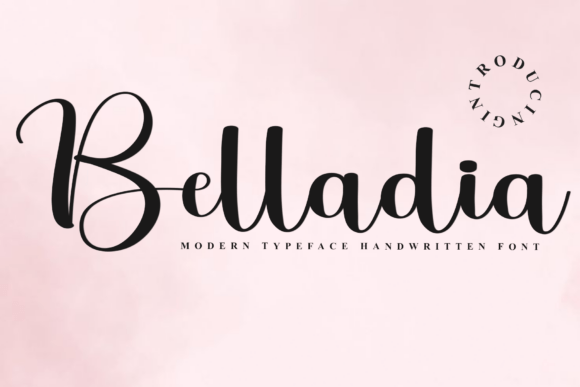
The Perfect Touch: Unlocking the Beauty of Belladia Font
Have you ever stared at a blank canvas, trying to come up with the perfect design concept, only to find yourself stuck in a creative rut? It’s a frustrating feeling, but one that’s easily overcome with the right tools. That’s where the Belladia Font comes in – a beautiful and eye-catching typeface that’s sure to breathe new life into your designs.
This soft, unique font is designed to add a special touch to your projects, making it perfect for designers, crafters, and anyone looking to add a personal touch to their work. With its distinctive strokes and versatile character, the Belladia Font is ideal for a wide range of applications, from digital design to handmade crafts.
Whether you’re working on a branding project, creating a piece of art, or simply looking to add some flair to your social media graphics, the Belladia Font is a valuable addition to any creative toolkit.
Belladia Font Key Features
- Font Family: Belladia is a script font designed to resemble handwritten text, ideal for creative and elegant designs.
- Character Set: Supports a wide range of languages, including Latin, Cyrillic, and Greek alphabets, making it suitable for multilingual designs.
- Unique Characteristics: Belladia’s script font style features connected letters, flourished strokes, and subtle irregularities, giving it a unique, handwritten feel.
Belladia Font Review
I’ve had the chance to work with the Belladia Font, and I must say it’s a unique and intriguing addition to any design project. ✨ One of its standout features is its elegant, handwritten feel, which makes it perfect for titles, headings, and other display text. The font’s subtle flair and flourishes add a touch of sophistication and whimsy, making it ideal for creative and artistic projects.
Another aspect that works well is its versatility. ✨ The Belladia Font comes in a range of weights, from Light to Bold, allowing you to adjust the font’s intensity to suit your design needs. This makes it easy to create a cohesive look across your project, whether you’re working with text-heavy or image-centric designs.
While the Belladia Font is a great addition to any design project, there are some limitations to be aware of. ⚠️ For one, the font may not be the best choice for body text, as its handwritten feel can be tiring to read in large quantities. Additionally, the font’s flourishes and flair can sometimes make it difficult to read, especially in smaller sizes.
Overall, I think the Belladia Font is a great choice for designers looking to add a touch of elegance and whimsy to their projects. While it may have some limitations, its unique feel and versatility make it a valuable addition to any design toolbox.
- Elegant, handwritten feel
- Range of weights (Light to Bold)
- Perfect for titles, headings, and display text
- Versatile and easy to use
- Not ideal for body text or small sizes
Getting the Most Out of Belladia Font
Some tips for getting the most out of Belladia font include:
– Pairing it with bold or italic fonts for added emphasis.
– Using it in combination with other elegant fonts for a sophisticated look.
– Experimenting with different font sizes and styles to create visual interest.
Belladia font is commonly used in:
– Wedding invitations and stationery.
– Luxury branding and marketing materials.
– High-end packaging and labels.
– Elegant digital designs and graphics.